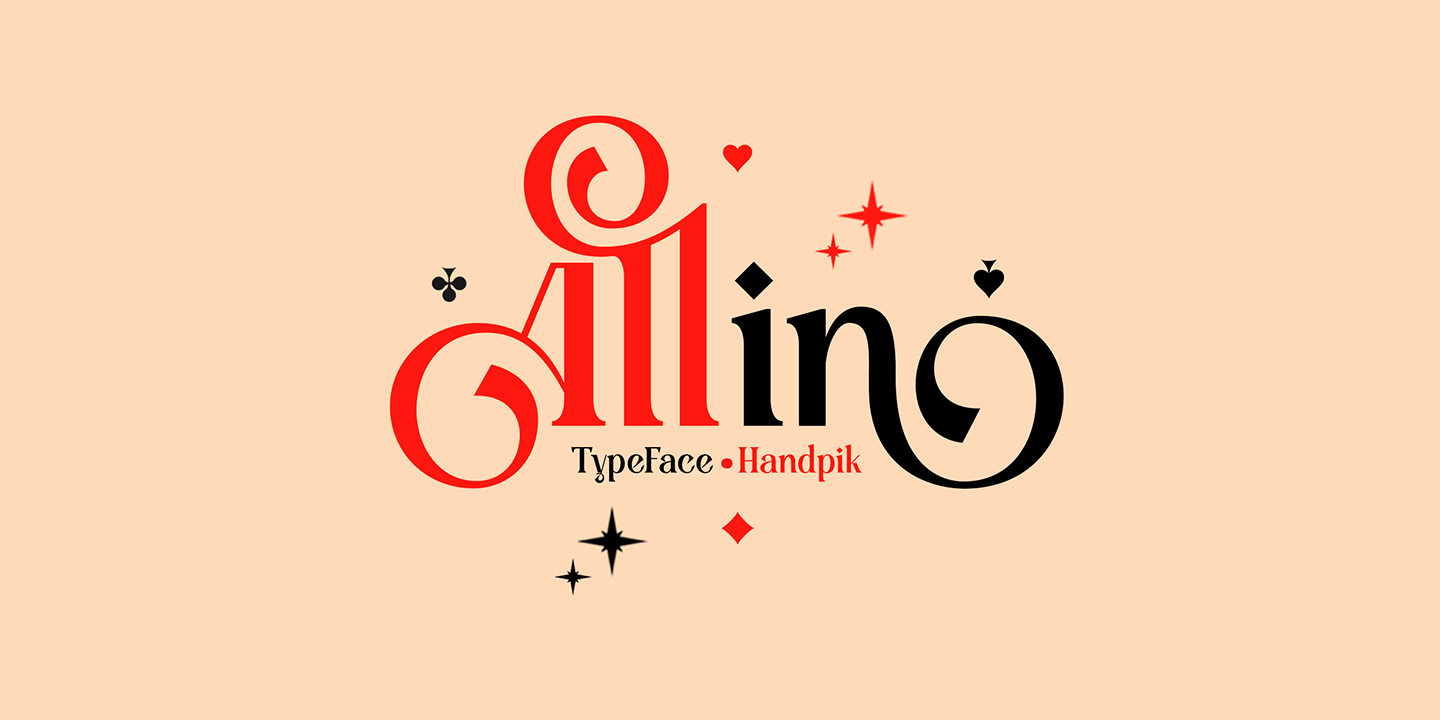
The All in Font is perfect for motivational poster designs, fitness center branding, sports team logos, competitive gaming graphics, entrepreneurial marketing materials, challenge-based event promotions, goal achievement campaigns, performance coaching signage, and high-stakes business presentations.
What makes the All in Font so exciting is its unwavering commitment energy that instantly communicates total dedication and fearless determination. This powerful typeface embodies the all-or-nothing mindset and complete commitment that defines champions and high achievers, creating an immediate impression of intensity and unstoppable resolve. The font's all-in character communicates the maximum effort and total dedication that competitive businesses need to attract audiences who embrace challenge and demand excellence in their pursuit of victory and achievement.
The All in Font family includes Regular weight featuring complete uppercase and lowercase character sets, comprehensive numerical collections, essential punctuation marks, and commitment-themed symbols that maintain the determined aesthetic throughout your high-performance and achievement-focused design projects.
Performance-driven businesses and competitive organizations consistently choose All in Font Free Download for projects that require authentic commitment appeal and maximum dedication communication. This exceptional typeface excels in environments where establishing total commitment and competitive intensity is crucial for attracting high achievers and performance-oriented customers who value complete dedication and winning mentality. The font's all-in character helps communicate the excellence and unwavering commitment that competitive audiences expect from established champions and performance-driven service providers.
The distinctive qualities of All in Font reflect the uncompromising standards of peak performance where total commitment, maximum effort, and complete dedication create championship results and extraordinary achievements. Each character demonstrates the focused intensity and unwavering resolve that characterizes successful competitors and high-performance organizations. The font's proportions and spacing create perfect balance between competitive aggression and strategic clarity that modern performance businesses require for effective motivation messaging and competitive positioning.
Contemporary performance enterprises appreciate how All in Font communicates championship mentality and total commitment. Whether designing materials for elite training facilities, creating branding for competitive sports organizations, or developing marketing for high-performance coaching services, this font delivers the intense character that distinguishes true champions from casual participants. The typeface works exceptionally well for businesses emphasizing maximum effort, competitive excellence, and the all-or-nothing approach of peak performance and championship achievement.
The versatility of All in Font extends across multiple performance applications and competitive marketing initiatives. Professional athletes utilize its intense character for personal branding materials and performance motivation campaigns. Business coaches choose it to communicate their commitment to client success and maximum achievement results. Competition organizers rely on its powerful appearance to attract serious competitors seeking ultimate challenges and championship-level competition experiences.
Digital performance platforms benefit from All in Font's optimized impact across various competitive applications and high-performance communication channels. The font maintains its all-in character whether displayed on championship websites, mobile performance apps, or high-energy competitive streaming platforms. This technical strength ensures consistent brand presentation across all performance communication platforms and competitive engagement scenarios.
The psychological impact of All in Font resonates with audiences who embrace total commitment and refuse to accept anything less than maximum effort in their competitive pursuits. The typeface serves as a visual battle cry for complete dedication and championship mentality that helps performance businesses build passionate relationships with elite competitors and achievement-oriented customers who demand excellence. This connection to total commitment and competitive intensity makes it invaluable for establishing legendary performance brand identities.
Performance marketing specialists and competitive branding professionals recognize All in Font as an essential tool for championship-level brand positioning. The font captures the essence of total dedication while making competitive excellence accessible to contemporary performance businesses who want to communicate their commitment to maximum effort, championship results, and the all-or-nothing mentality of true champions in today's competitive achievement marketplace.